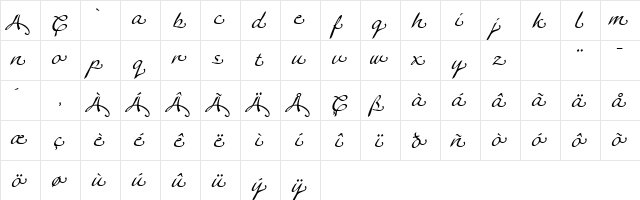
LTAgogo SwashThree SwashThree
Design Context for LTAgogo SwashThree Typeface
LTAgogo SwashThree brings a calligraphic fluidity to the page — its connecting strokes and expressive curves give it an unmistakably human quality.
Font Pairing: Combine LTAgogo SwashThree with a simple geometric sans for maximum contrast — the tension between flowing curves and clean structure is a classic typographic pairing.
Pro Tip: Use LTAgogo SwashThree for short runs of text — names, titles, or taglines. Extended body copy in script faces tires the eye quickly.